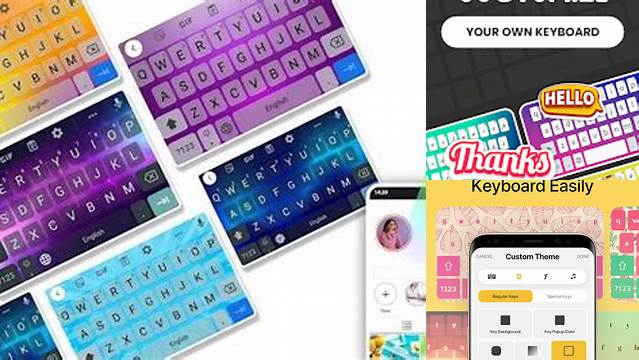
Cool Fonts Keyboard APK: Express Yourself!
Hey guys! Ever wanted to make your texts and social media posts pop with cool and unique fonts? Well, you're in luck! Today, we're diving deep into the world of APK fonts keyboards. These nifty apps let you jazz up your messages, social media bios, and pretty much anything else you type. Let's explore how these keyboards work, what to look for, and some tips to make the most of them. Get ready to unleash your inner creative genius!
1. Understanding APK Fonts Keyboards
So, what exactly is an APK fonts keyboard? It's essentially a keyboard application that you install on your Android device (typically through an APK file, hence the name) that offers a wide variety of fonts to choose from. Instead of being stuck with the standard system font, you can switch between dozens, or even hundreds, of different typefaces to add personality to your communications. Think of it as having a mini-typography studio right at your fingertips! APK fonts keyboards are designed to be user-friendly, making it easy for anyone to express themselves through text. Whether you're sending a text message, crafting a tweet, or designing a social media post, these keyboards give you the power to make your words stand out.
2. Benefits of Using Font Keyboard APKs
Why should you even bother with an APK fonts keyboard? Well, the benefits are numerous! First and foremost, they let you express your individuality. In a world where everyone's using the same default fonts, having a unique typeface can make your messages instantly recognizable. It’s a fantastic way to brand yourself on social media, making your posts more memorable and engaging. Another great benefit is the ability to add emphasis and flair to your texts. Want to highlight a particular word or phrase? Simply switch to a bold or decorative font to draw attention to it. Font keyboard APKs also enhance the visual appeal of your content, making it more attractive and engaging for your audience. Whether you’re creating content for social media, designing invitations, or simply sending messages to friends, the right font can make all the difference.
4. Choosing the Right Fonts Keyboard APK
Not all APK fonts keyboards are created equal. Some offer a wider variety of fonts, while others may have better customization options or be more user-friendly. When choosing a keyboard, consider factors like the number of fonts available, the ease of use, and the app's overall reputation. Read reviews from other users to get an idea of their experiences. Look for keyboards that offer a good balance between style and functionality. A keyboard with tons of fonts is great, but if it's clunky and difficult to use, you're not going to enjoy it. Also, pay attention to the app's permissions. Some keyboards may request access to sensitive information, so be sure to choose one from a trusted developer with a clear privacy policy.
5. Exploring Different Font Styles
The beauty of APK fonts keyboards lies in the sheer variety of font styles available. From elegant scripts to bold sans-serifs, there's a font for every occasion. Experiment with different styles to see what works best for you. Script fonts are great for adding a touch of elegance to your messages, while bold fonts are perfect for making a statement. Sans-serif fonts offer a clean and modern look, while serif fonts provide a more traditional feel. Don't be afraid to mix and match font styles to create unique and eye-catching designs. The key is to find fonts that reflect your personality and the message you're trying to convey. Whether you’re going for a playful, professional, or sophisticated look, the right font can help you achieve your desired effect.
6. Customizing Your Keyboard Appearance
Many APK fonts keyboards offer customization options beyond just fonts. You can often change the keyboard's theme, layout, and even add your own background images. This allows you to create a keyboard that truly reflects your personal style. Experiment with different color schemes and layouts to find what works best for you. Some keyboards even allow you to customize the size and spacing of the keys, making it easier to type accurately. Customizing your keyboard's appearance can also improve your overall typing experience. A visually appealing keyboard can make typing more enjoyable, while a well-designed layout can increase your typing speed and accuracy.
7. Integrating Fonts into Social Media
One of the most popular uses for APK fonts keyboards is to enhance your social media presence. Use unique fonts to create eye-catching bios, captions, and posts that stand out from the crowd. A well-chosen font can help you express your personality and attract attention to your content. When using fonts on social media, be mindful of readability. While decorative fonts can be fun, they may not be easy to read on small screens. Stick to fonts that are clear and legible, especially for longer blocks of text. Also, consider the platform you're using. Some platforms may not support all fonts, so it's a good idea to test your fonts before posting. By strategically using fonts, you can create a cohesive and visually appealing brand identity on social media.
8. Fonts Keyboard APK for Instagram
Instagram is a visual platform, so making your content visually appealing is crucial. Using a fonts keyboard APK can help you create unique and engaging captions, stories, and bios that grab attention. Experiment with different fonts to find what resonates with your audience. Use fonts to highlight important information, add personality to your captions, and create a cohesive aesthetic for your profile. Remember, consistency is key. Choose a few fonts that you love and use them consistently across your profile to create a strong brand identity. A well-designed Instagram profile can attract new followers and increase engagement with your content.
9. Using Fonts Keyboard APK for TikTok
Tiktok is a fast-paced platform where trends come and go quickly. To stand out, you need to be creative and innovative. Fonts keyboard APK can help you add a unique touch to your videos, captions, and comments. Use fonts to create eye-catching titles, add emphasis to your messages, and express your personality. When using fonts on Tiktok, keep it short and sweet. Tiktok videos are typically short, so you don't have much time to capture your audience's attention. Use fonts to make your message clear and concise. Also, be aware of Tiktok's font limitations. Some fonts may not display correctly on the platform, so it's a good idea to test your fonts before posting.
10. Fonts Keyboard APK for WhatsApp
Even in everyday messaging apps like WhatsApp, using a fonts keyboard APK can add a personal touch to your conversations. Surprise your friends with unique font styles and make your messages more expressive. Use fonts to highlight important information, add emotion to your messages, and create a fun and engaging experience. When using fonts on WhatsApp, be mindful of readability. While decorative fonts can be fun, they may not be easy to read on small screens. Stick to fonts that are clear and legible, especially for longer messages. Also, consider your audience. Some people may not be familiar with custom fonts, so it's a good idea to use them sparingly.
11. Free Fonts Keyboard APK Options
Who doesn't love free stuff? Luckily, there are plenty of free fonts keyboard APK options available. These keyboards offer a wide variety of fonts without costing you a dime. However, be aware that free keyboards may come with limitations, such as fewer fonts, ads, or limited customization options. When choosing a free keyboard, be sure to read reviews and check the app's permissions. Some free keyboards may contain malware or collect your data without your consent. Stick to keyboards from reputable developers with a clear privacy policy. While free keyboards may not offer all the features of paid keyboards, they can still be a great way to add some personality to your typing.
12. Premium Fonts Keyboard APK Features
If you're looking for the ultimate font keyboard experience, consider investing in a premium fonts keyboard APK. Premium keyboards typically offer a wider variety of fonts, advanced customization options, and no ads. They may also come with exclusive features, such as the ability to create your own custom fonts or integrate with other apps. While premium keyboards cost money, they can be well worth the investment if you're serious about font customization. When choosing a premium keyboard, be sure to read reviews and compare features. Look for keyboards that offer a good balance between style, functionality, and value.
13. Fonts Keyboard APK and Device Compatibility
Before you download and install a fonts keyboard APK, make sure it's compatible with your device. Some keyboards may only work on certain Android versions or devices. Check the app's description on the Google Play Store to see if it's compatible with your device. If you're not sure, you can always try downloading the keyboard and see if it works. If it doesn't work, you can simply uninstall it. It's also a good idea to check the keyboard's reviews to see if other users with your device have had any issues.
14. Security Considerations for Fonts Keyboard APK
Security is paramount when installing any app, including fonts keyboard APK. Always download keyboards from trusted sources, such as the Google Play Store. Be wary of downloading APK files from unknown websites, as they may contain malware or viruses. Before installing a keyboard, check its permissions. Some keyboards may request access to sensitive information, such as your contacts or location. Only install keyboards that you trust and that have a clear privacy policy. It's also a good idea to use a mobile antivirus app to scan your device for malware regularly.
15. Troubleshooting Common Fonts Keyboard APK Issues
Sometimes, things don't go as planned. If you're having trouble with your fonts keyboard APK, here are some common issues and how to fix them: The keyboard doesn't appear: Make sure the keyboard is enabled in your device's settings. The keyboard is laggy: Try clearing the keyboard's cache and data. The keyboard is displaying incorrectly: Try uninstalling and reinstalling the keyboard. If you're still having problems, contact the keyboard's developer for support.
16. Fonts Keyboard APK Updates and Maintenance
To ensure your fonts keyboard APK runs smoothly, keep it updated with the latest version. Updates often include bug fixes, performance improvements, and new features. You can usually update your keyboard through the Google Play Store. It's also a good idea to check the keyboard's settings for any maintenance options, such as clearing the cache or resetting the keyboard to its default settings.
17. Creating Custom Fonts with Fonts Keyboard APK
Some advanced fonts keyboard APK allow you to create your own custom fonts. This is a great way to express your unique style and create fonts that are truly one-of-a-kind. Creating custom fonts can be a complex process, but many keyboards provide user-friendly tools and tutorials to help you get started. Experiment with different font styles, weights, and spacing to create fonts that reflect your personality. You can then use your custom fonts in your messages, social media posts, and other projects.
18. Fonts Keyboard APK and Accessibility
When choosing a fonts keyboard APK, consider accessibility features. Some keyboards offer features like high contrast themes, adjustable font sizes, and voice input to make typing easier for users with disabilities. Look for keyboards that are designed to be accessible to all users, regardless of their abilities. By choosing an accessible keyboard, you can ensure that everyone can enjoy the benefits of font customization.
19. Fonts Keyboard APK for Gaming
Gamers, listen up! A fonts keyboard APK can add a unique touch to your in-game chats and usernames. Use fonts to express your personality and create a memorable gaming experience. Some keyboards even offer gaming-specific features, such as customizable macros and keyboard shortcuts. When choosing a keyboard for gaming, look for one that is responsive, customizable, and compatible with your favorite games. A well-designed gaming keyboard can enhance your gameplay and give you a competitive edge.
20. Fonts Keyboard APK for Note-Taking
If you're a student or professional who takes a lot of notes, a fonts keyboard APK can help you organize and personalize your notes. Use different fonts to highlight important information, create headings and subheadings, and add visual appeal to your notes. Some keyboards even offer note-taking specific features, such as integration with note-taking apps and the ability to create custom templates. By using a font keyboard, you can make your notes more engaging and easier to read.
21. The Future of Fonts Keyboard APK Technology
The world of fonts keyboard APK is constantly evolving. New fonts, features, and technologies are being developed all the time. In the future, we can expect to see even more advanced customization options, AI-powered font suggestions, and seamless integration with other apps. The future of font keyboards is bright, and we're excited to see what innovations are in store.
22. Fonts Keyboard APK and Language Support
When choosing a fonts keyboard APK, make sure it supports your language. Some keyboards may only support a limited number of languages, while others offer support for dozens of languages. Check the app's description on the Google Play Store to see if it supports your language. If you're multilingual, look for a keyboard that allows you to switch between multiple languages easily. A keyboard that supports your language will make typing more accurate and efficient.
23. Legal Considerations for Using Fonts Keyboard APK
Before using a fonts keyboard APK, be aware of any legal considerations. Some fonts may be copyrighted, and you may need to obtain a license to use them for commercial purposes. Check the font's license agreement to see what restrictions apply. It's also a good idea to avoid using fonts that are offensive or discriminatory. By being mindful of legal considerations, you can avoid any potential legal issues.
24. Fonts Keyboard APK and Battery Life
Some fonts keyboard APK can drain your device's battery life more quickly than others. This is especially true for keyboards with animated themes or complex features. If battery life is a concern, choose a keyboard that is optimized for efficiency. Look for keyboards that offer power-saving modes or that allow you to disable unnecessary features. By choosing a battery-friendly keyboard, you can extend your device's battery life.
25. Fonts Keyboard APK and Data Usage
Some fonts keyboard APK may consume a significant amount of data, especially if they download fonts or themes from the internet. If you have a limited data plan, choose a keyboard that is optimized for data usage. Look for keyboards that allow you to download fonts and themes over Wi-Fi or that offer offline modes. By choosing a data-friendly keyboard, you can avoid exceeding your data limits.
26. Fonts Keyboard APK for Graphic Design
Even for graphic design, fonts keyboard APK can be used in handy. Graphic designers can utilize font keyboard APKs to quickly test out different font styles and combinations on their mobile devices, making it easier to conceptualize designs on the go. Some advanced keyboards even integrate with graphic design apps, allowing designers to seamlessly import fonts and create stunning visuals right from their smartphones or tablets. This is a great way to prototype ideas and explore creative possibilities without being tied to a desktop computer. It's all about having the flexibility to create wherever inspiration strikes.
27. Fonts Keyboard APK for Email Marketing
In the realm of email marketing, the visual presentation of your message is paramount. Fonts keyboard APK allows you to add a touch of personality and branding to your email campaigns. Use unique fonts to create eye-catching headlines, highlight key information, and make your emails stand out from the inbox clutter. Consistency in font usage across your email campaigns can also help reinforce your brand identity and create a cohesive visual experience for your subscribers. Just remember to test your email designs on different devices and email clients to ensure that your fonts render correctly and your message is clear and legible for everyone.
28. Fonts Keyboard APK for Blogging
Bloggers, take note! Fonts keyboard APK can be a valuable tool for enhancing the visual appeal of your blog posts. Use different fonts to create engaging headlines, break up long paragraphs, and emphasize important points. You can also use fonts to add a personal touch to your blog's design and create a unique brand identity. When choosing fonts for your blog, consider readability, accessibility, and consistency. Stick to fonts that are easy to read on screens and that are accessible to users with disabilities. Also, be consistent in your font usage throughout your blog to create a cohesive and professional look.
29. Fonts Keyboard APK and Multitasking
In today's fast-paced world, multitasking is essential. Fonts keyboard APK can help you stay productive by allowing you to quickly switch between different fonts and styles while working on multiple tasks. Some keyboards even offer multitasking-specific features, such as the ability to create custom keyboard shortcuts or to quickly access frequently used fonts. By choosing a keyboard that is optimized for multitasking, you can streamline your workflow and get more done in less time.
30. Fonts Keyboard APK: Future Trends and Innovations
As technology continues to evolve, the future of fonts keyboard APK is looking brighter than ever. We can expect to see even more innovative features and functionalities in the years to come. Some potential trends include AI-powered font recommendations, seamless integration with cloud-based services, and enhanced accessibility features for users with disabilities. The goal is to make font customization even more intuitive, convenient, and accessible for everyone. So, stay tuned for exciting developments in the world of fonts keyboard APK!